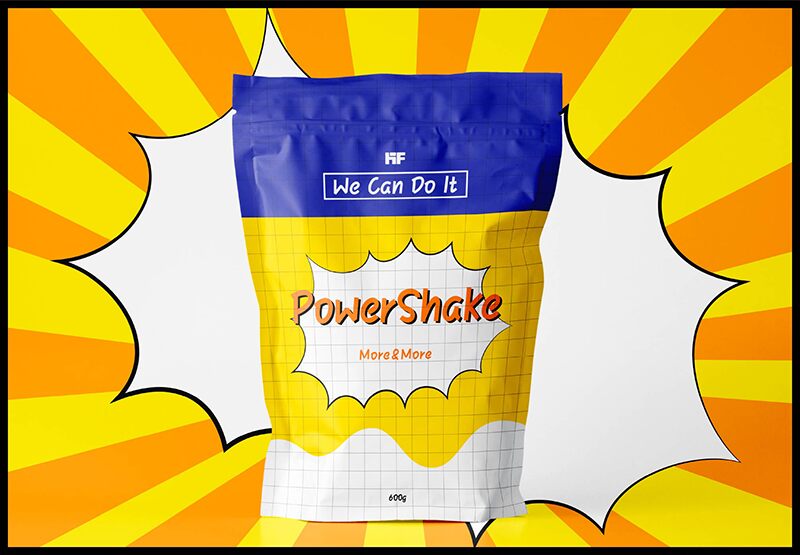
HFComic
HF Comic is a trendy comic display font designed by HyFont Studio. This freebie can be used for book titles, video games characters, web headers, cartoons, headlines, posters, and branding designs of comedy-based products or services.
Comic fonts tend to be used for all ages, and are ideal for any projects that require playful displays, bright colors, and bold designs with eye-catching shapes.
HyFont Studio
HyFont Studio is the new Global Type Design Division of Kika Tech, Inc. Our goal is to design fonts for all languages around the world. The name "HyFont" derives from "Hyphen," a punctuation mark used to join words and separate syllables within a single word. Our motto, "Change a Word, Change the World," reflects our mission to connect people globally through typography.